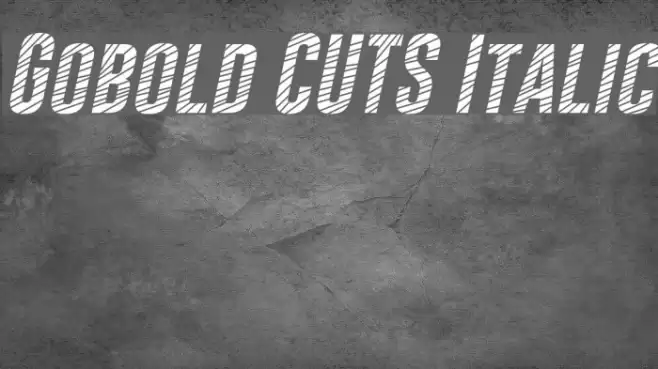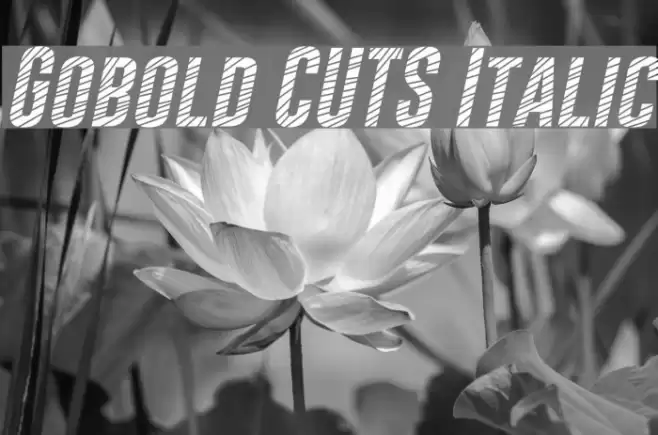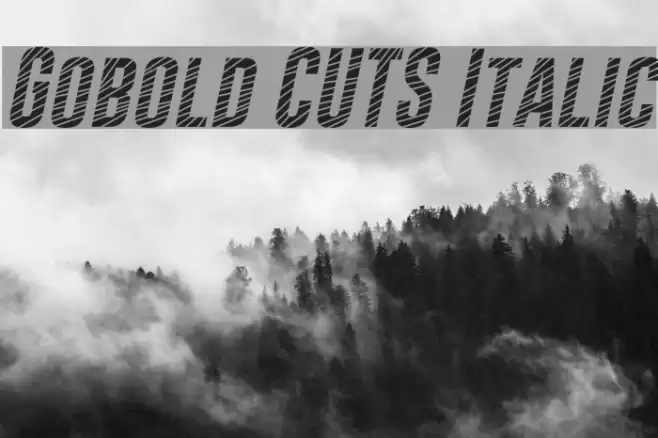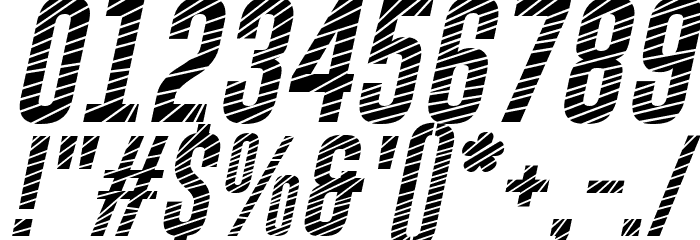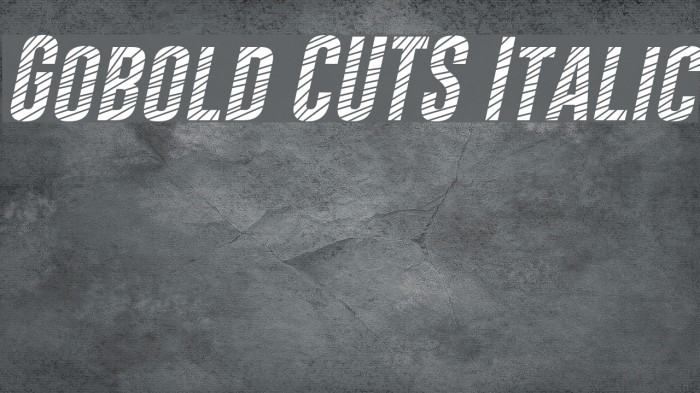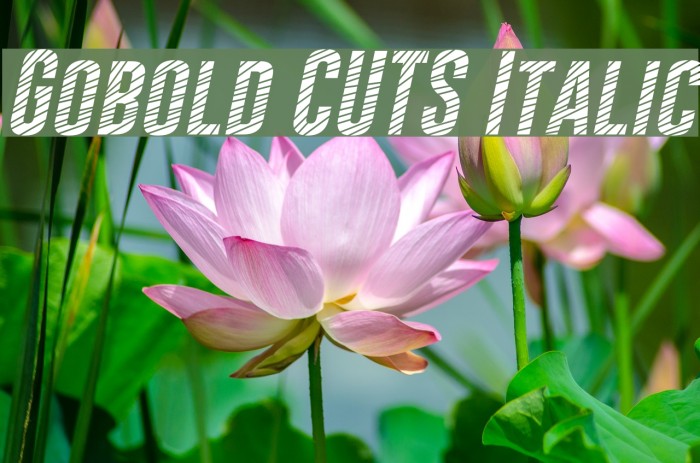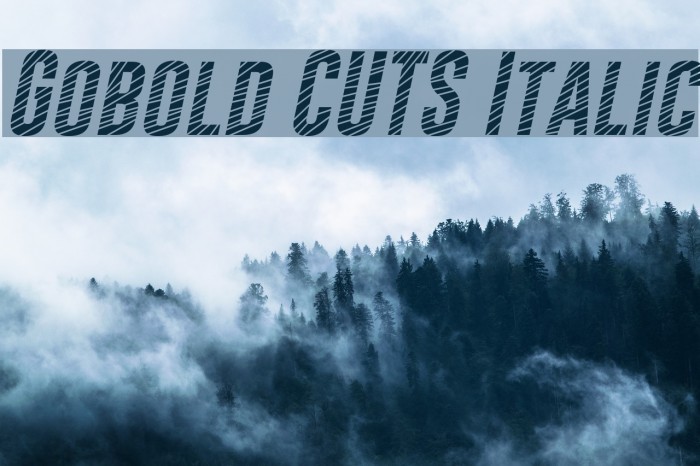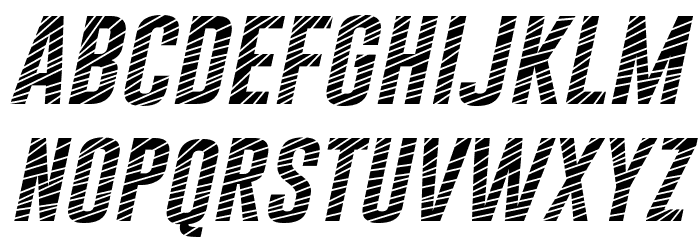
Gobold CUTS Italic Font
Gobold CUTS Italic Description
This font features a bold and dynamic design with a distinct slanted style, giving it an italicized appearance. The characters are cut through with diagonal lines, creating a unique, edgy look that stands out. The uppercase and lowercase letters maintain a consistent width, contributing to a uniform and cohesive appearance. The numerals and special characters follow the same stylistic approach, ensuring a harmonious overall design. This font's striking visual impact makes it suitable for attention-grabbing applications.
A bold, italicized font with diagonal cuts for a dynamic, edgy look from Uncategorized fonts.
- Proposed Projects: Ideal for sports branding, dynamic posters, edgy advertisements, and modern web design.